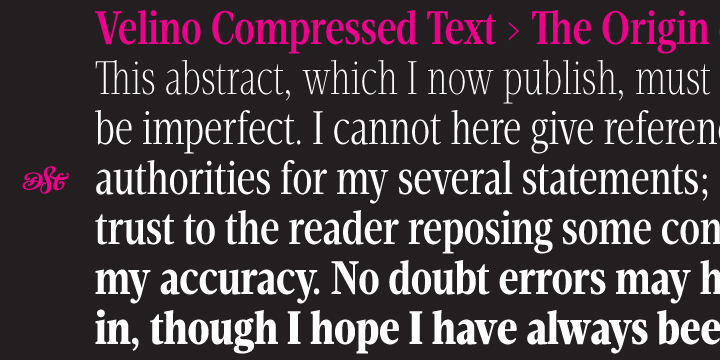
Velino Compressed Text Font is ideal for space-efficient editorial layouts, dense data presentations, compact magazine designs, newspaper column text, technical documentation, efficient corporate reports, condensed product catalogs, information-rich interfaces, systematic reference materials, and professional space-saving communications. This versatile typeface excels in applications where maximum information density and space optimization need to be communicated with compressed clarity and systematic efficiency that embodies the essence of functional typography and the practical solutions required for high-density information design and space-conscious professional layouts.
What makes Velino Compressed Text Font exciting is its remarkable ability to maximize readability and information density through its systematically compressed letterforms that maintain exceptional legibility while providing significant space savings for text-heavy applications and information-dense layouts. The font embodies the spirit of efficient design with its compressed construction and space-optimized proportions that suggest the careful balance between readability and economy that defines excellent condensed typography. Its precisely engineered character details and space-conscious personality create an atmosphere of functional excellence that resonates with designers, publishers, and information architects who understand the critical importance of maximizing content while maintaining professional readability and visual clarity.
The Velino Compressed Text Font family typically includes Light, Regular, Medium, and Bold weights, each maintaining the signature compressed characteristics and optimal readability. Some versions offer corresponding Italic styles that preserve the space-efficient benefits while adding textual emphasis, extended character sets for international applications, and specialized variants optimized for different reading environments. The family may also include ultra-compressed styles for maximum space efficiency and display treatments designed for headers and navigation requiring compact professional presentation and systematic information hierarchy.
Whether you're creating information-dense publications, space-efficient corporate materials, or systematic documentation projects, Velino Compressed Text Font Free Download delivers the perfect space optimization your efficiency-focused projects deserve. Its compressed character and systematic styling make it an invaluable asset for publishers, corporations, and information designers working in editorial design, technical documentation, and efficient communication sectors where authentic space economy and maintained readability are essential for maximizing information delivery while preserving professional standards and reader comprehension in challenging layout constraints.